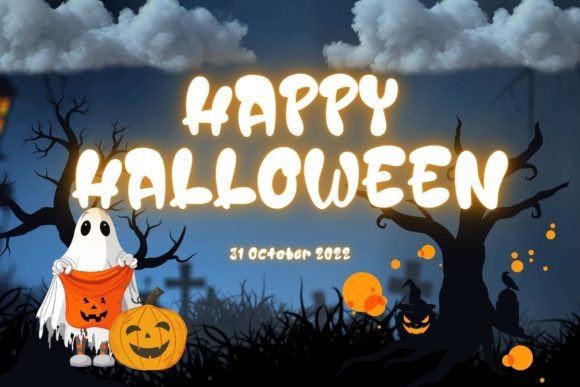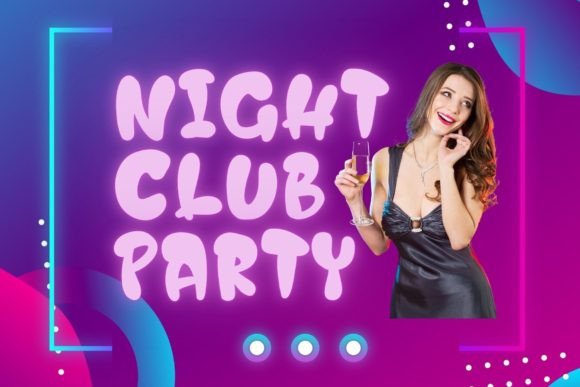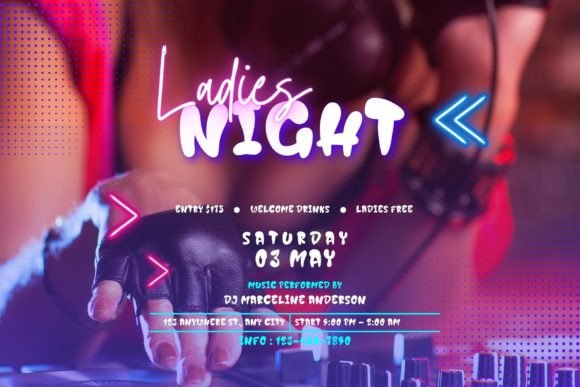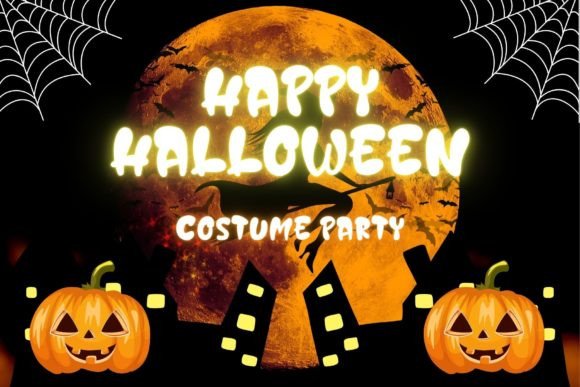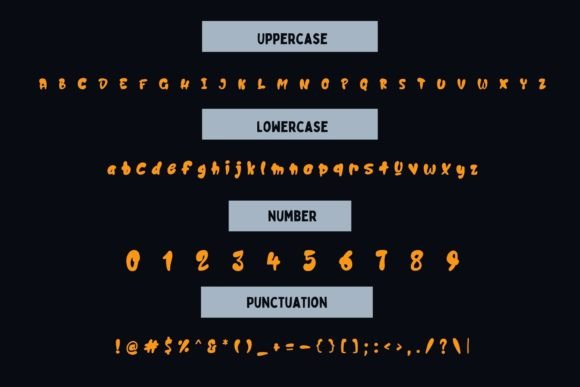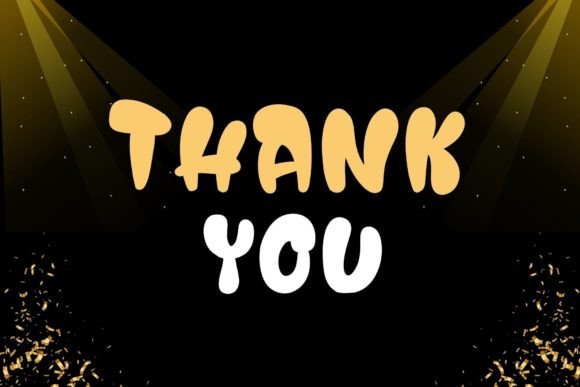
Introducing Happy Night Font: The Perfect Choice for Creative Projects
Are you tired of using the same old fonts for your creative projects? Look no further than Happy Night Font, a cool display font that embodies playfulness and authenticity. With its unique and eye-catching design, Happy Night Font is the perfect choice for all your favorite projects, from blog posts and logos to branding, ads, invitations, greeting cards, planners, photo albums, decorations, and much more.
What Makes Happy Night Font So Special?
Happy Night Font is more than just a font – it’s a statement piece. Its playful and authentic design makes it perfect for projects that require a touch of personality and whimsy. Whether you’re a designer, crafter, or DIY enthusiast, Happy Night Font is sure to bring a smile to your face and inspire your creativity.
Key Features of Happy Night Font
- Playful and Authentic Design: Happy Night Font features a unique and eye-catching design that’s perfect for projects that require a touch of personality and whimsy.
- Cool Display Font: With its bold and modern design, Happy Night Font is perfect for headlines, titles, and other display text.
- Versatile: Happy Night Font can be used for a wide range of projects, from blog posts and logos to branding, ads, invitations, greeting cards, planners, photo albums, decorations, and much more.
- Easy to Read: Despite its playful design, Happy Night Font is easy to read and understand, making it perfect for body text and other written content.
How to Use Happy Night Font in Your Projects
Happy Night Font is incredibly versatile and can be used in a wide range of projects. Here are a few ideas to get you started:
- Blog Posts: Use Happy Night Font as a header or title font to add a touch of personality to your blog posts.
- Logos and Branding: Create a unique and eye-catching logo with Happy Night Font that reflects your brand’s personality and style.
- Ads and Marketing Materials: Use Happy Night Font to create eye-catching ads and marketing materials that grab attention and drive results.
- Invitations and Greeting Cards: Add a touch of whimsy and personality to your invitations and greeting cards with Happy Night Font.
- Planners and Photo Albums: Use Happy Night Font to add a personal touch to your planners and photo albums.
- Decorations: Create eye-catching decorations, such as posters, banners, and signs, with Happy Night Font.
Why Designers and Crafters Love Happy Night Font
Happy Night Font has quickly become a favorite among designers and crafters, and for good reason. Here are a few reasons why:
- Unique Design: Happy Night Font features a unique and eye-catching design that’s sure to stand out in any project.
- Versatile: Happy Night Font can be used for a wide range of projects, making it a great addition to any design or crafting toolkit.
- High-Quality: Happy Night Font is a high-quality font that’s designed to produce crisp, clear text at any size.
In conclusion, Happy Night Font is a cool display font that’s perfect for designers, crafters, and DIY enthusiasts. With its playful and authentic design, Happy Night Font is sure to bring a touch of personality and whimsy to any project. Whether you’re creating a blog post, logo, ad, invitation, greeting card, planner, photo album, or decoration, Happy Night Font is the perfect choice. So why wait? Download Happy Night Font today and start creating amazing projects that showcase your unique style and personality!